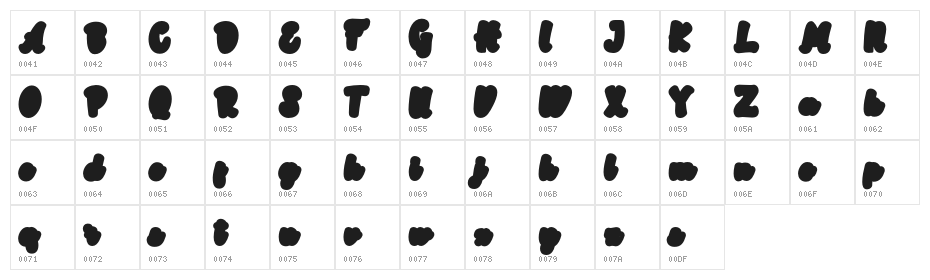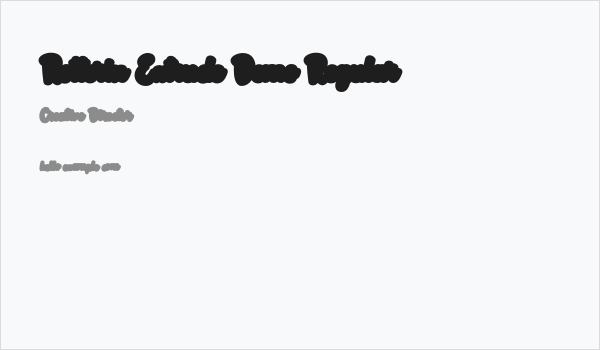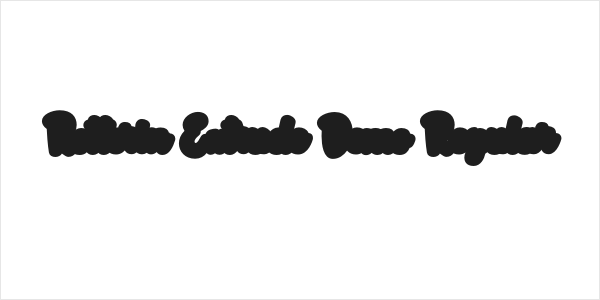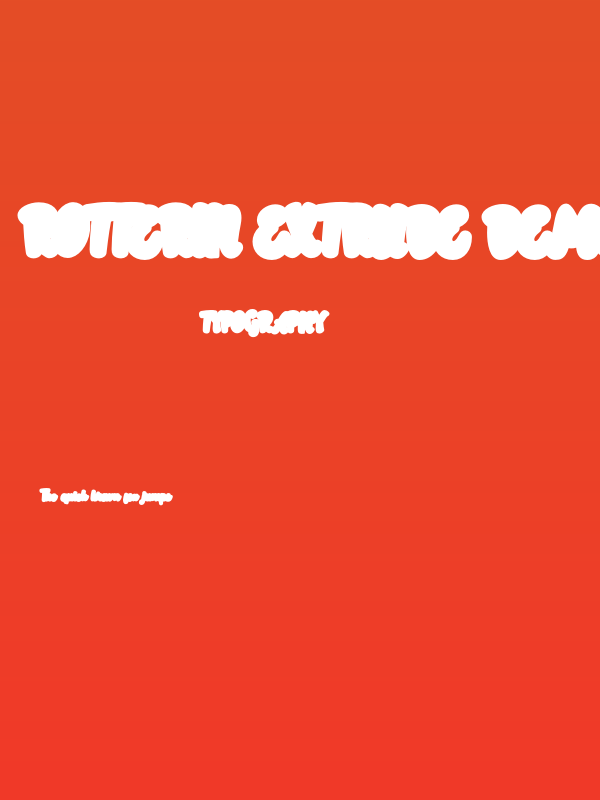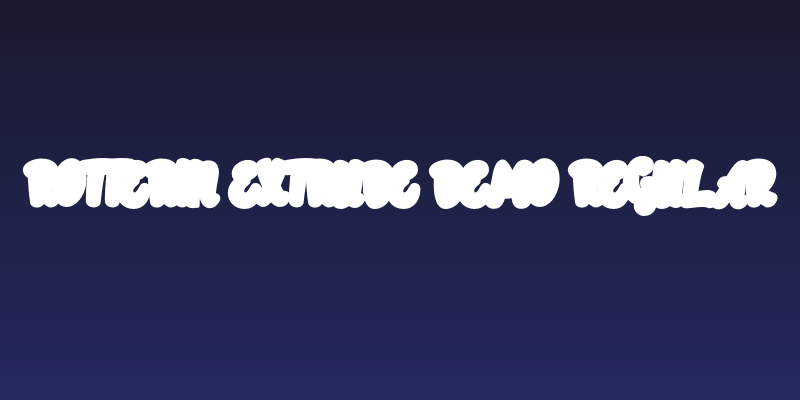
Rotterin Extrude Demo Regular Font
Rotterin Extrude Demo Regular Description
This font features a bold, playful style with a three-dimensional extruded effect. The characters are rounded and thick, creating a sense of depth and volume. The design is highly decorative, making it stand out with its unique and eye-catching appearance. The letters are closely spaced, contributing to a compact and cohesive look. The font's boldness and distinctive style make it suitable for projects that require a strong visual impact. It is ideal for creative and artistic designs, where the emphasis is on fun and engagement.
| Use Case | Logos, Posters, Creative projects |
| Proposed Projects | Ideal for posters, logos, children's books, and playful branding. |